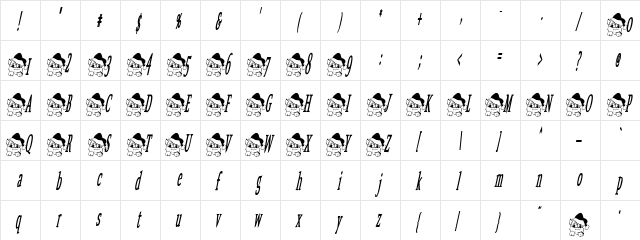
ChristmasKitty Regular Font Preview
ChristmasKitty Regular
ChristmasKitty Regular Font Details
Design Context for ChristmasKitty Typeface
ChristmasKitty is a composed and adaptable typeface that performs quietly and consistently across a wide range of design contexts.